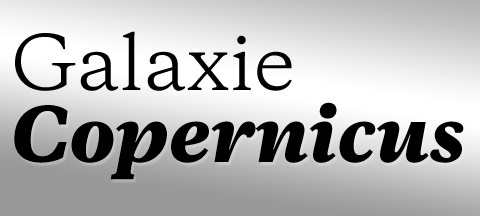
Galaxie Copernicus (Village)
Five years in the making, the Copernicus typeface has finally joined the Galaxie stable. Galaxie Copernicus is a reconsideration of the 16th-century types of Christophe Plantin.
The face is a collaboration between Kris Sowersby and Chester Jenkins, and reflects both designers’ styles and approaches. The face is a Plantin for the 21st century, reflecting the technology and aesthetics of today; not a revival, but a reconsideration of Plantin.